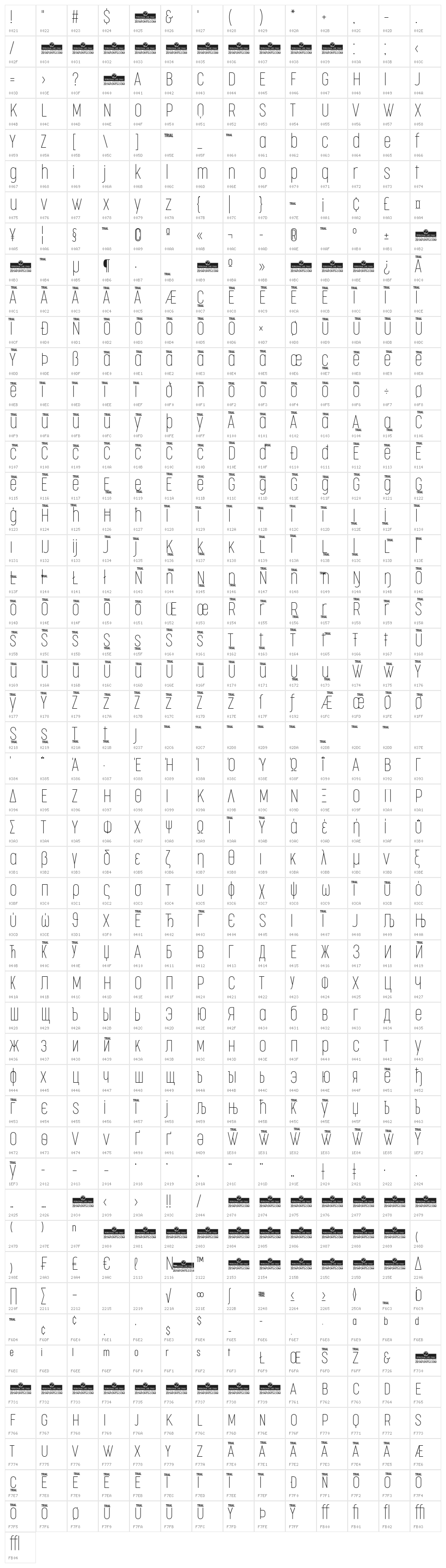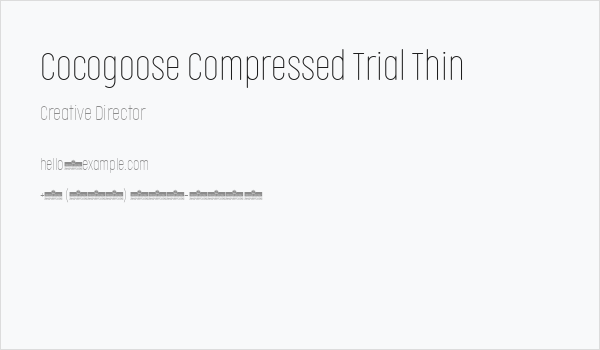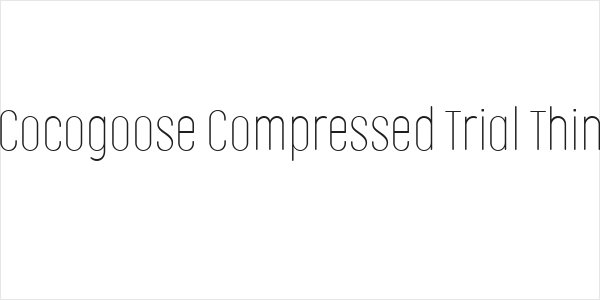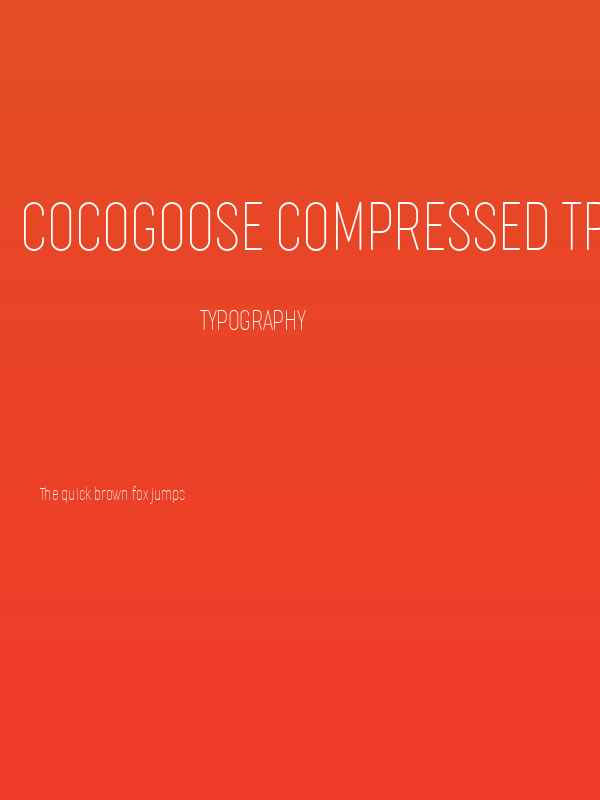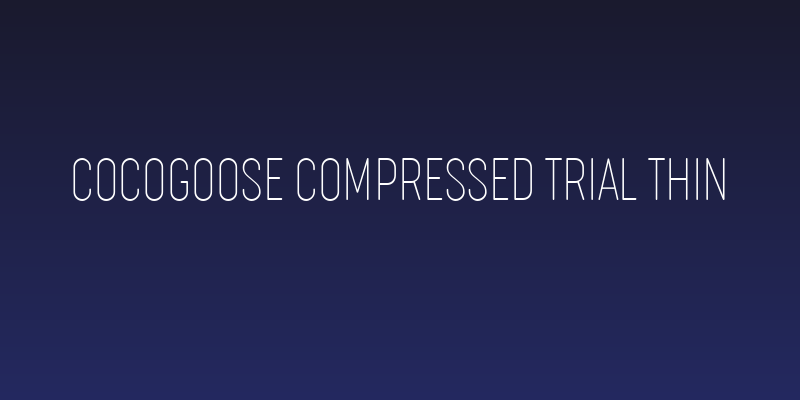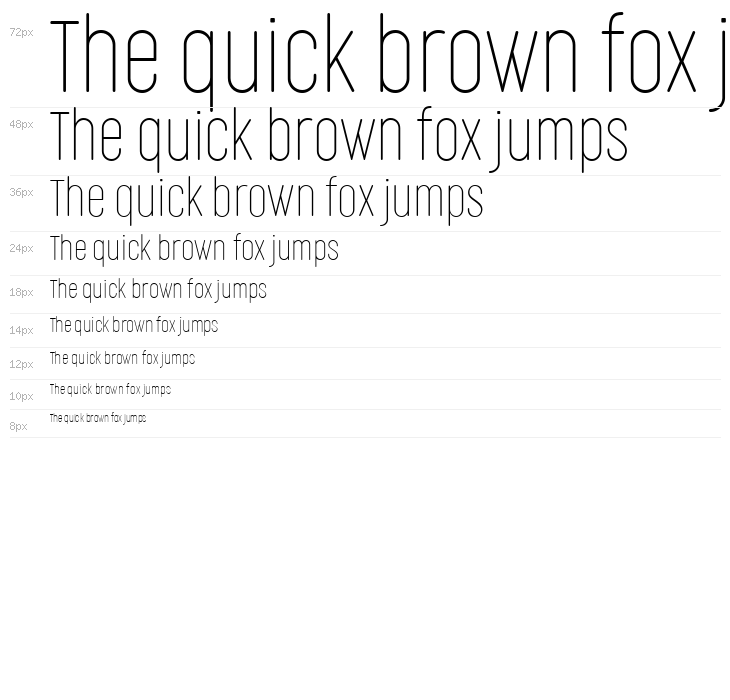
Cocogoose Compressed Trial Thin Font
Cocogoose Compressed Trial Thin Description
This font features a sleek and modern design with a thin, compressed style that emphasizes verticality and elegance. The characters are uniformly narrow, giving it a distinct, streamlined appearance. The uppercase and lowercase letters maintain a consistent height, contributing to its cohesive look. The font's thin strokes and minimalistic design make it suitable for contemporary projects that require a clean and sophisticated aesthetic. The special characters are designed with the same thin lines, ensuring uniformity across all glyphs.
| Proposed Projects | Ideal for modern branding, minimalist posters, sleek website headers, and elegant invitations. |